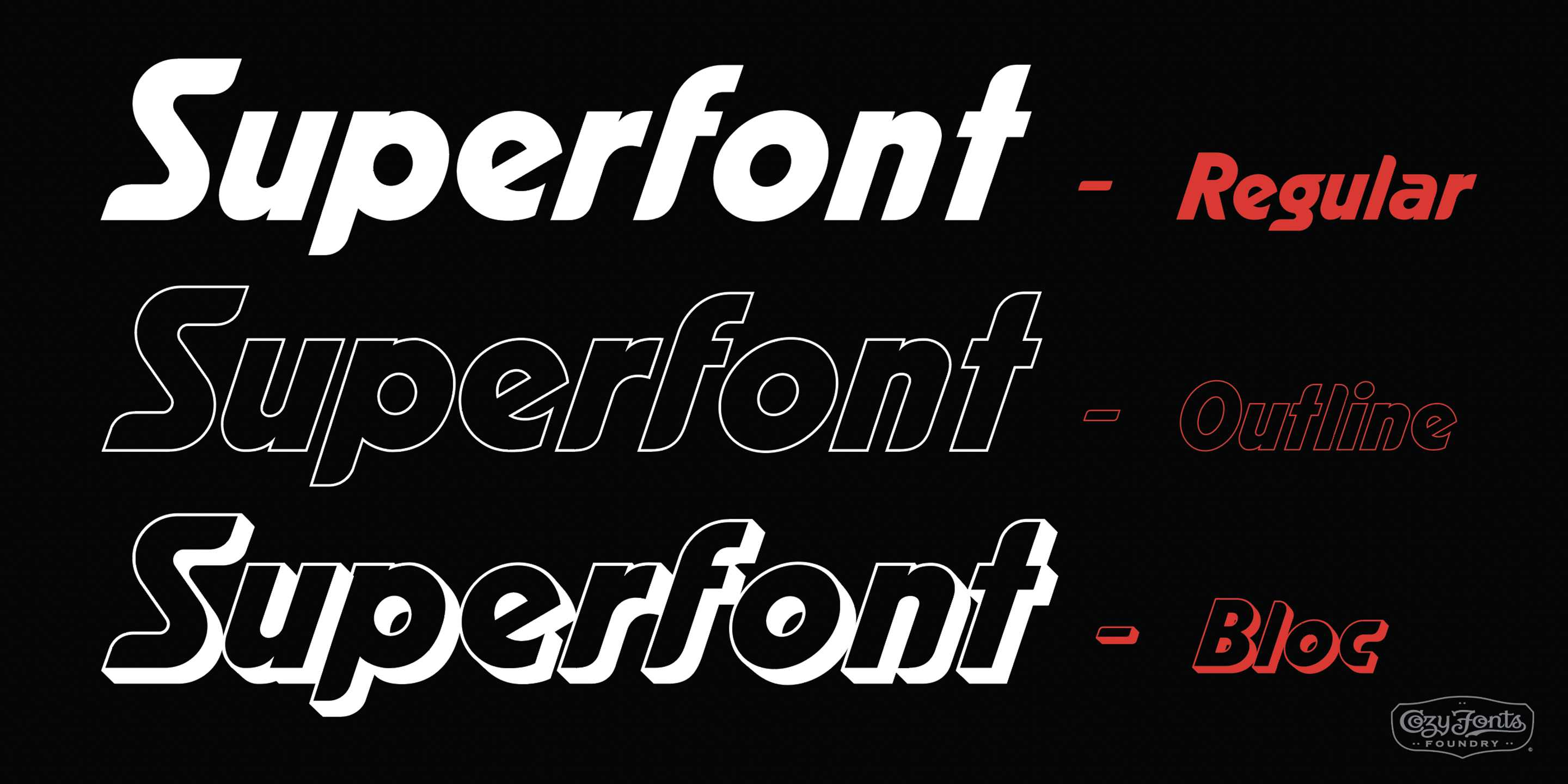
Superfont Font is ideal for superhero comic book titles, action-packed movie posters, powerful gaming graphics, heroic brand identities, dynamic sports team logos, bold advertising campaigns, champion athlete endorsements, victory celebration materials, superhuman fitness programs, and any extraordinary project that demands ultimate typography with unstoppable power and legendary visual impact.
What makes Superfont Font exciting is its ultimate power that captures the extraordinary strength of legendary heroes and the unstoppable force of superhuman determination. This typeface embodies the essence of heroic greatness with bold letterforms that seem to possess superpowers themselves, radiating confidence and unbreakable strength. The font's superheroic character makes it perfect for brands and projects that want to communicate excellence, invincibility, and the inspiring belief that ordinary individuals can achieve extraordinary things through courage and determination.
The Superfont Font family includes multiple weights and heroic variations, featuring regular, bold, and ultra-heavy versions along with dynamic styles and alternate characters that simulate super-powered energy effects. This comprehensive collection allows designers to create legendarily powerful typography that maintains the font's signature superheroic character while providing flexibility for various action-oriented and championship design applications.
When exploring authentic superhero typography, Superfont Font Free Download represents an exceptional opportunity to work with a typeface that genuinely captures the spirit of heroic adventure and superhuman achievement. This font demonstrates innovative design thinking by incorporating the dynamic energy and uncompromising strength that define both comic book heroes and the human potential for extraordinary accomplishment and heroic action.
Professional designers appreciate Superfont Font for its ability to instantly communicate power and heroic excellence across various entertainment and sports platforms. The font's mighty character makes it particularly effective for sports brands, entertainment companies, and motivational organizations seeking to establish powerful identities that resonate with audiences who believe in pushing limits and achieving the impossible.
The timeless appeal of Superfont Font lies in its perfect representation of heroic ideals and superhuman potential that continues to inspire people to believe in their own extraordinary capabilities. This typeface serves as a powerful symbol of courage, strength, and the unlimited potential that exists within every individual willing to embrace their inner hero.
For creative professionals working with action and heroic brands, Superfont Font represents the ultimate typography solution that brings authentic superhero power and legendary strength to any application, ensuring designs reflect the extraordinary courage and unstoppable determination that define true heroes and championship achievements.